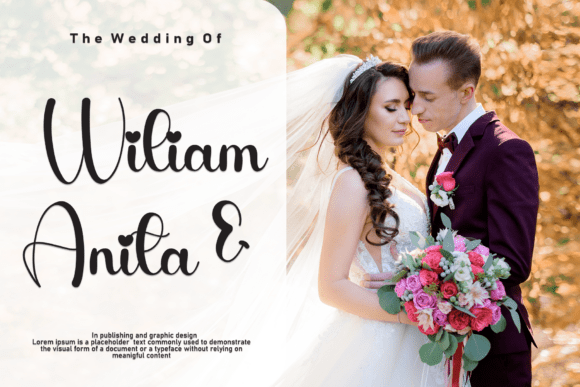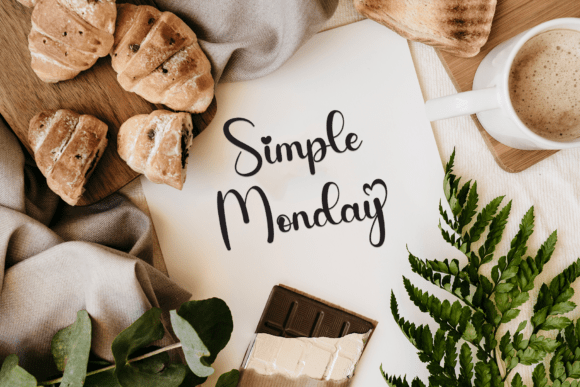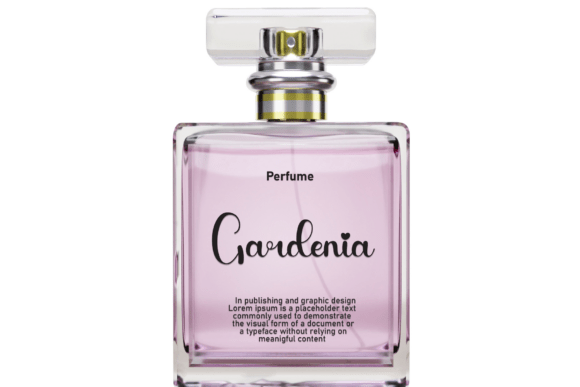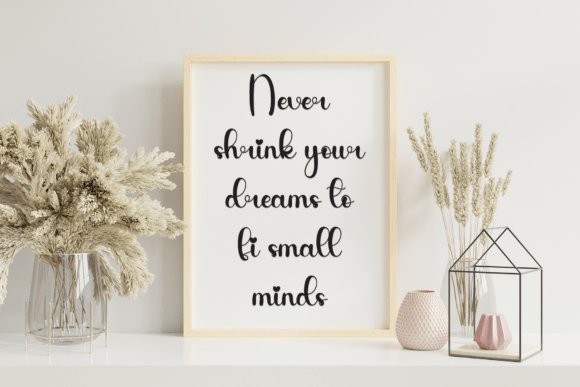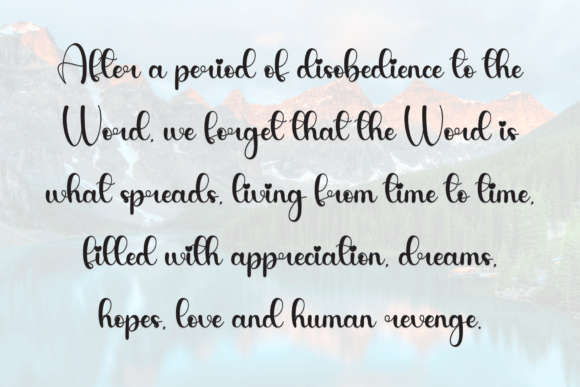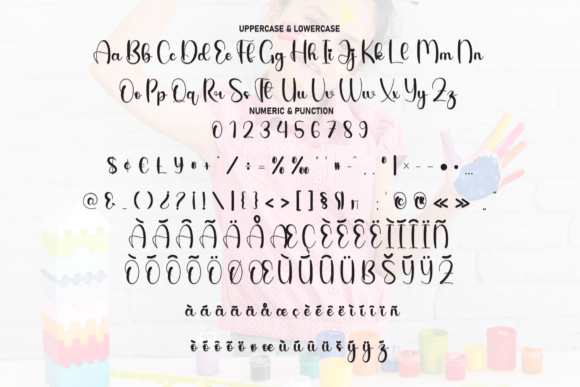
Introducing Coloring Font: Elevate Your Designs with Elegance and Modern Charm
In the world of typography, few fonts manage to strike a balance between elegance and modernity. Coloring Font is one such exceptional typeface that brings a stylish script font to your design projects. With its fluid strokes, graceful curves, and meticulously crafted letterforms, Coloring Font captures the essence of hand-drawn calligraphy while infusing it with a contemporary edge.
The Characteristics of Coloring Font
Coloring Font is not just another script font; it’s a design statement. Its fluid strokes give it a dynamic feel, making it perfect for designs that require movement and elegance. The graceful curves of each letterform ensure a smooth reading experience, while the carefully balanced design guarantees that the font is both aesthetically pleasing and highly legible.
One of the standout features of Coloring Font is its versatility. Whether you’re working on a logo, an invitation, packaging, or social media graphics, this font adds a touch of sophistication and personality that elevates your design. The natural flow of the font makes it suitable for a wide range of applications, from formal events to casual branding projects.
Applications of Coloring Font
- Logos: Create memorable and stylish logos that stand out from the competition.
- Invitations: Add a touch of elegance to your event invitations, making them truly special.
- Packaging: Elevate your product packaging with a sophisticated look that appeals to customers.
- Social Media Graphics: Make your social media posts and stories stand out with a font that combines modernity and charm.
Why Choose Coloring Font?
Choosing Coloring Font for your design projects offers numerous benefits. Its refined details ensure that your designs have a high level of sophistication, making them suitable for professional and personal use. The font’s visual appeal lies in its ability to convey elegance and modernity simultaneously, a rare quality in the world of typography.
Tips for Using Coloring Font Effectively
To make the most of Coloring Font, consider the following tips:
- Pair it with Simplicity: Let the font be the focal point by pairing it with simple backgrounds or design elements.
- Experiment with Colors: The name “Coloring” isn’t just symbolic; experiment with different colors to see how the font transforms with each hue.
- Consider Size and Spacing: While the font is elegant and modern, ensuring proper spacing and size will enhance its readability and impact.
Coloring Font is more than just a typeface; it’s a design tool that brings elegance, modernity, and personality to your projects. Whether you’re a designer looking to elevate your portfolio or a crafter seeking to add a professional touch to your creations, Coloring Font is an excellent choice. Its versatility, combined with its aesthetic appeal, makes it a valuable addition to any designer’s toolkit.
With Coloring Font, you’re not just selecting a font; you’re embracing a design philosophy that values elegance, modernity, and creativity. So, dive into the world of sophisticated typography and let Coloring Font be the voice that speaks elegance and charm in your designs.